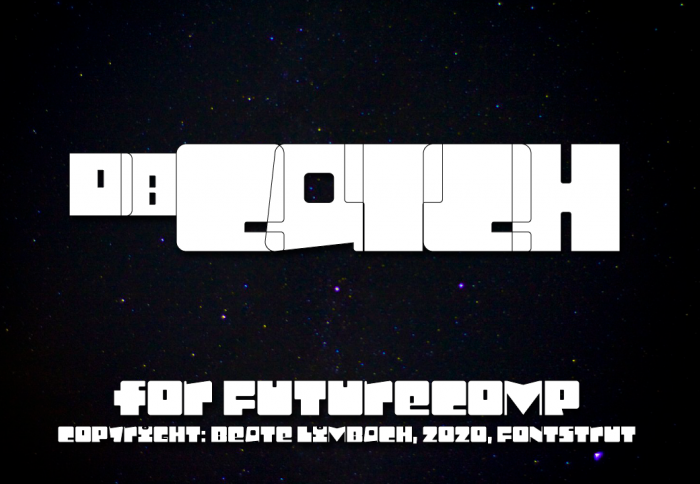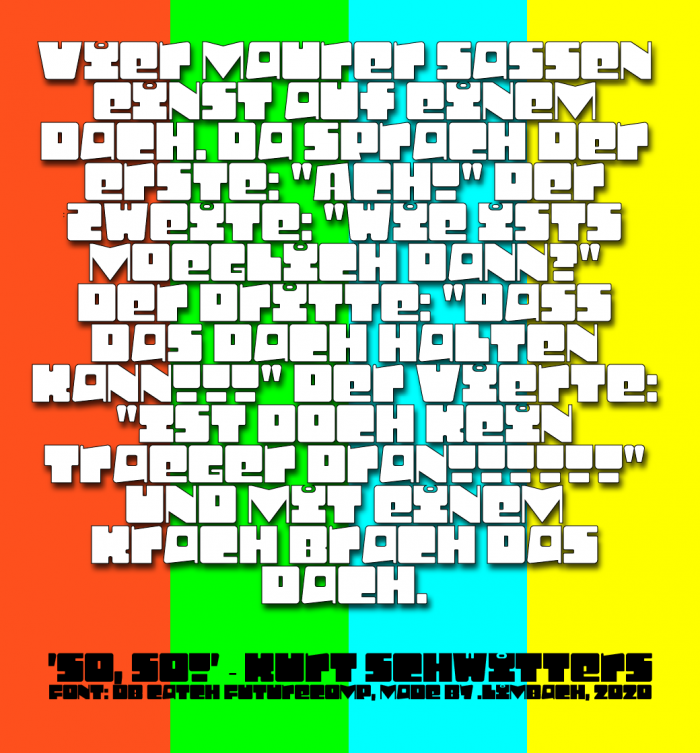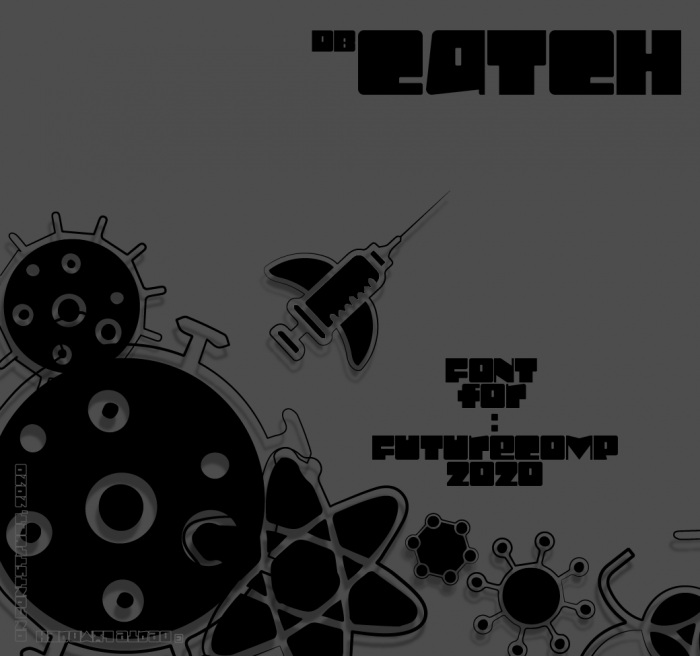
Eclecticism will be a guarantee for many of us in future times.
Somehow reminds me of Lost In Space
Somehow reminds me of Spongebob Squarepants.
Obnoxiously friendly.
The X and Y are the best dressed in the family. I think they can start their own.
The M looks like he's trying to fit in with the rest of the family (but everyone knows he's adopted :-o and they love and include him anyway)
interesting font, but not too future, could be good for honorable mention, good luck
What a funky collection of characters, it would work great as the title font for a space age animation film. Love how the umlauts are incorporated in the letters.
I have to admit – it looks a bit "dada" ; ))
I noticed that something in many of your fonts has such a feeling of naivety and optimism. Maybe it just seems to me, or is it your love, personal attitude to font forms (and not manipulatively cold, like mine). It is amazing if it can really be conveyed in a font and at the same time someone can feel it.
Regarding this font,
it’s very funny, I think it would have looked good in a children's book or television (Youtube) show. The form of a is also suitable for lowercase d and b, as it seems to me.
juicy fresh feel. great